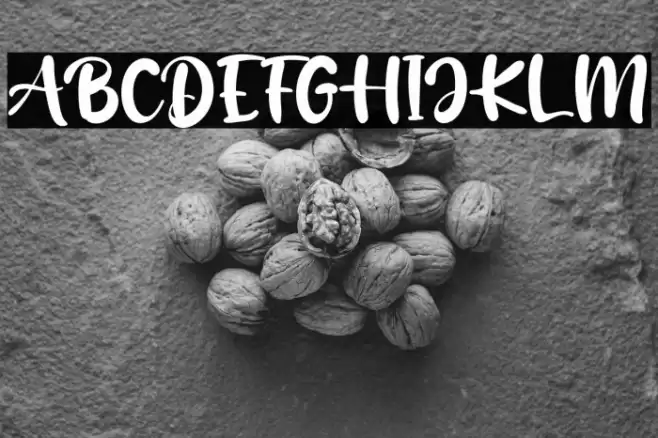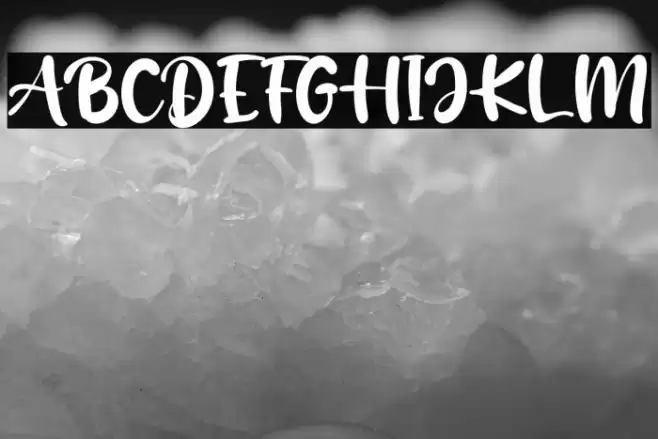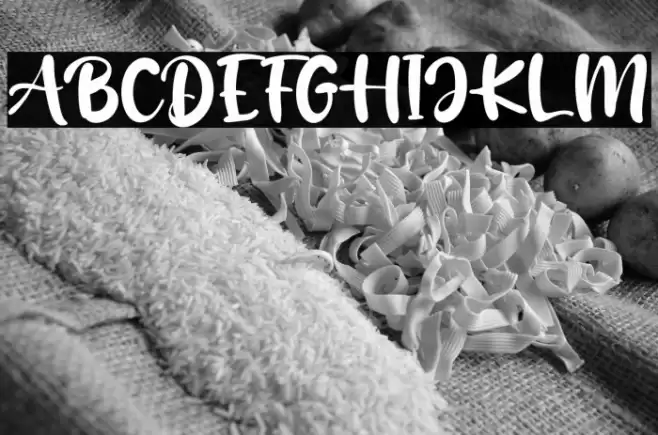
Baby Coffee Font
Baby Coffee Description
This font features a playful and energetic script style, characterized by its bold and flowing letterforms. The uppercase letters exhibit a dynamic rhythm with a slight slant, giving them a lively appearance. The lowercase letters maintain a cohesive flow, enhancing readability while retaining a casual elegance. The numerals are consistent with the overall style, offering a harmonious blend of curves and loops. Special characters are thoughtfully designed to match the font's whimsical nature, making it suitable for creative and informal applications. The font's overall aesthetic is both approachable and stylish, ideal for projects that require a touch of personality and flair.
A playful and bold script font with flowing, dynamic letterforms from Uncategorized fonts.